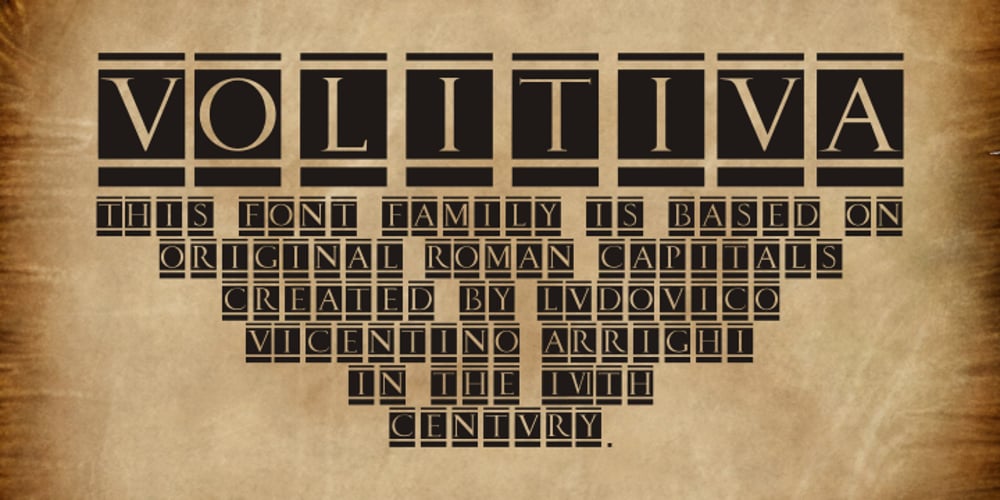
Volitiva
Volitiva font
Volitiva Font Family was designed by published by Intellecta Design. Volitiva contains 10 styles and family package options. This font family is based on original Roman capitals created by Ludovico Vicentino Arrighi in the 16th century.